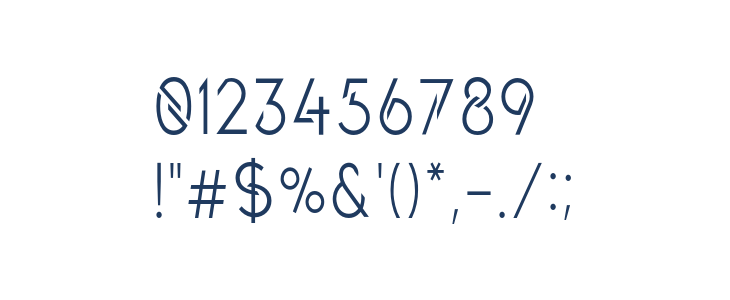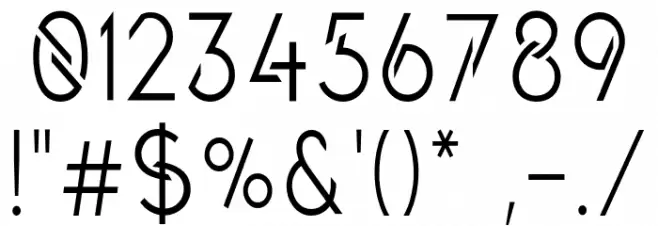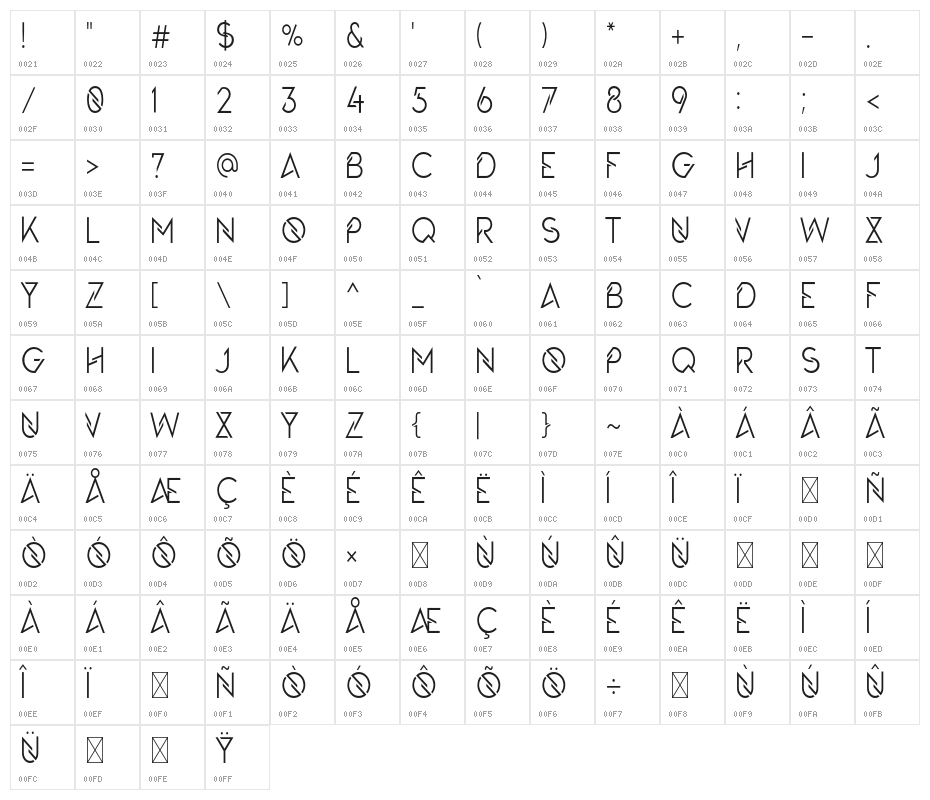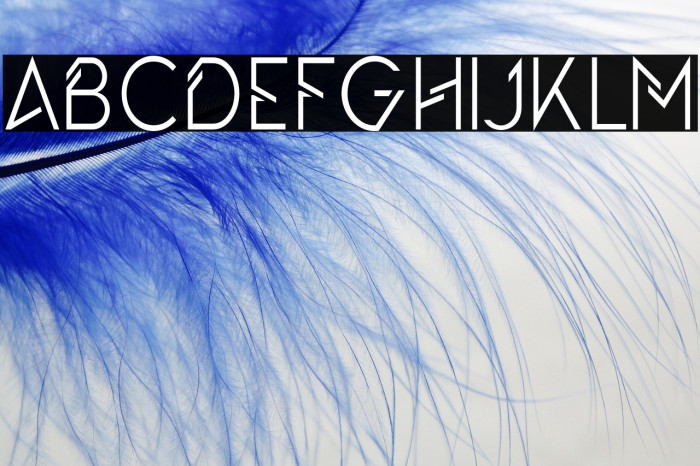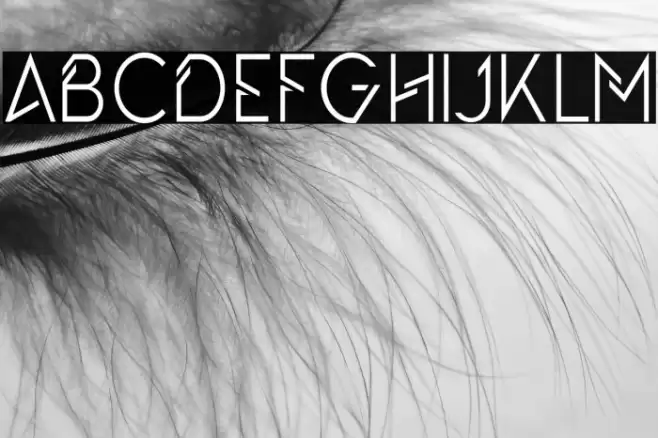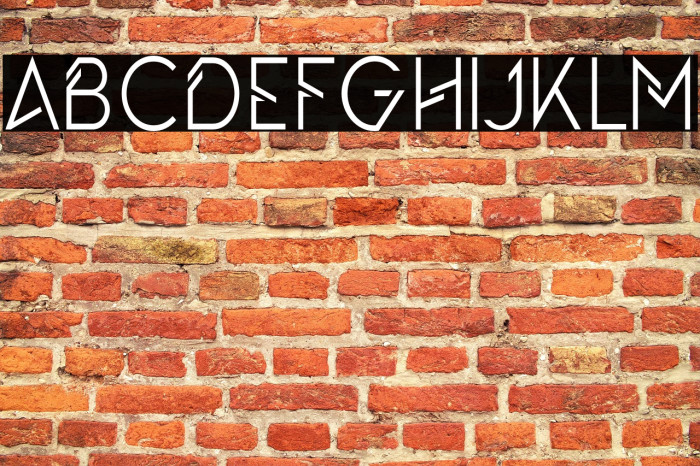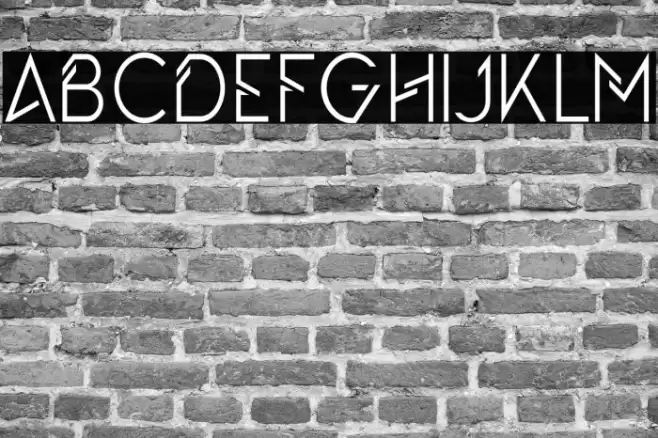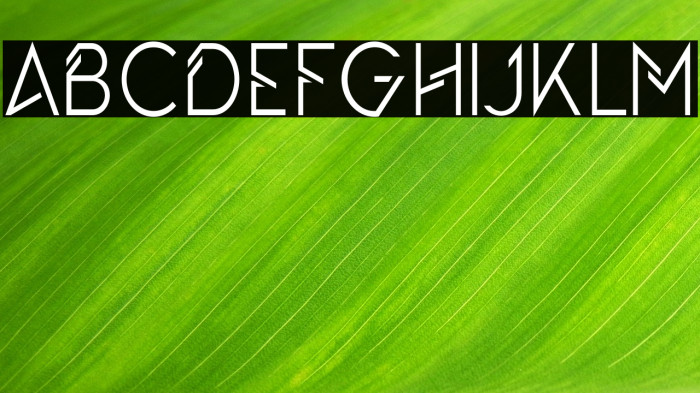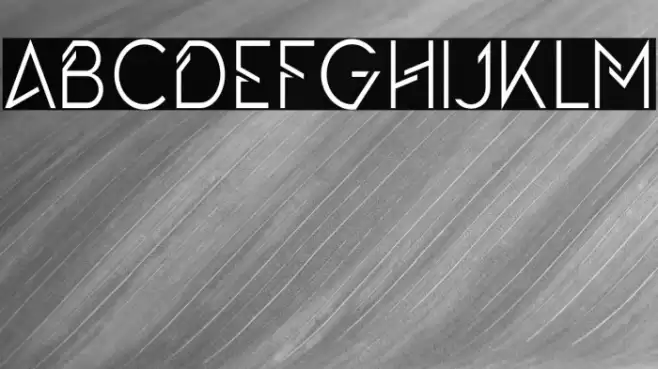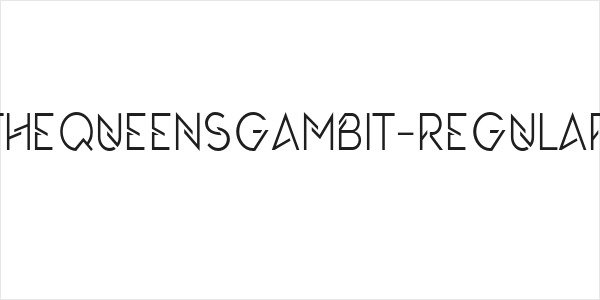
TheQueensGambit-Regular Font
TheQueensGambit-Regular Description
This font features a modern and geometric design with a unique twist on traditional letterforms. The characters are constructed with clean lines and sharp angles, giving it a futuristic and stylish appearance. The uppercase and lowercase letters maintain a consistent height, while the numbers and special characters complement the overall aesthetic. The font's distinct style is characterized by its angular cuts and minimalistic approach, making it suitable for contemporary design projects. Its sleek and sophisticated look is ideal for making bold statements in headlines or branding materials.
| Proposed Projects | Ideal for branding, headlines, posters, and modern digital interfaces. |